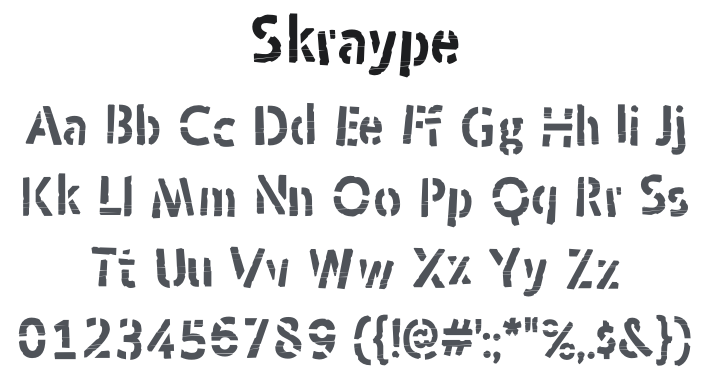
Skraype Font
About Skraype
Skraype is a rugged stencil display typeface where letterforms appear crooked, scraped, and fading — as if painted through a worn stencil template with uneven pressure, leaving streaks, rust stains, and flaking edges behind. The result feels genuinely battle-worn and deteriorating. Perfect for military-themed designs, post-apocalyptic game titles, urban decay aesthetics, industrial signage, and any headline needing a raw, scraped-off-the-wall sense of gritty authenticity.